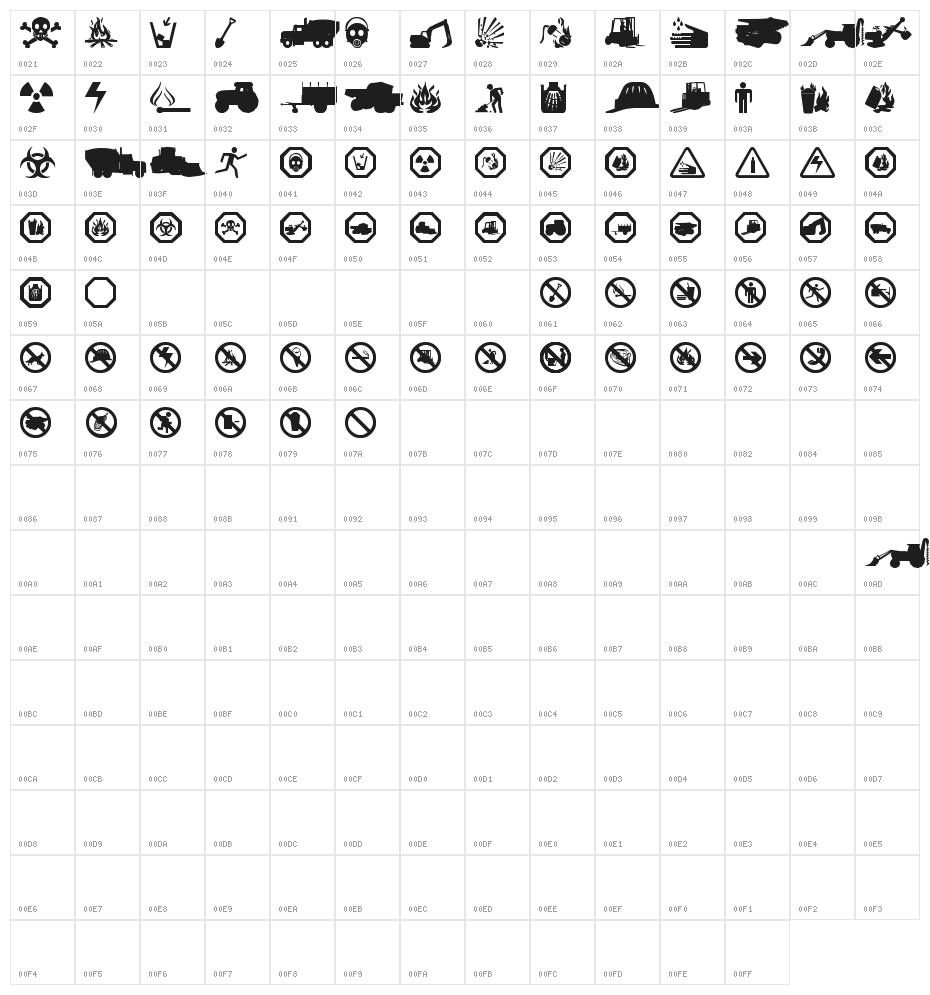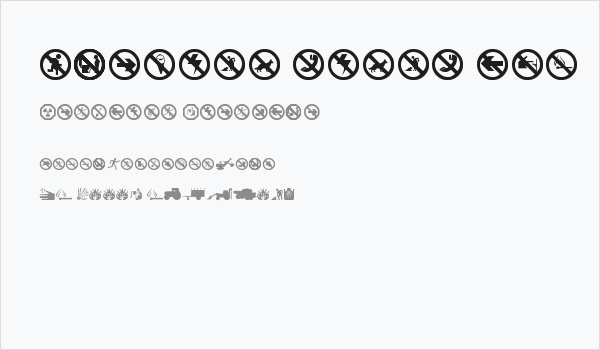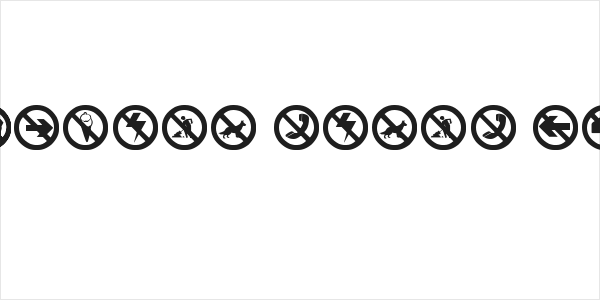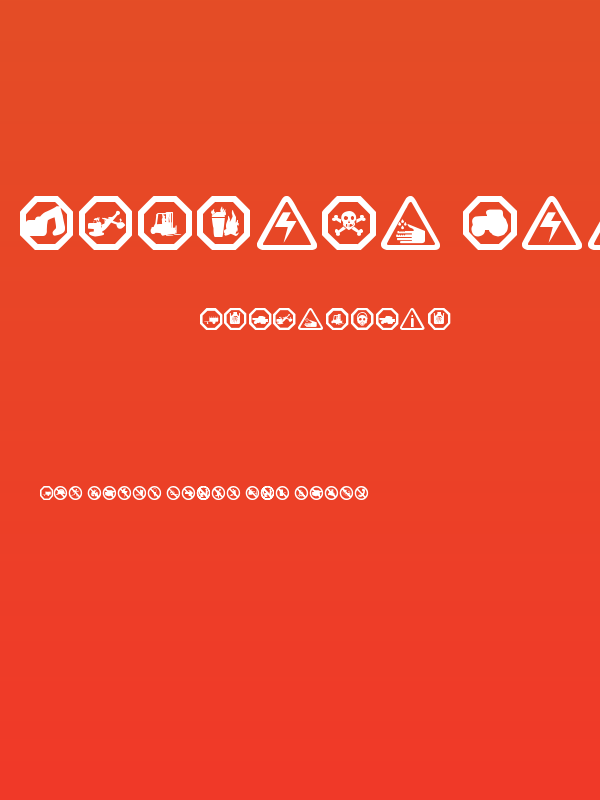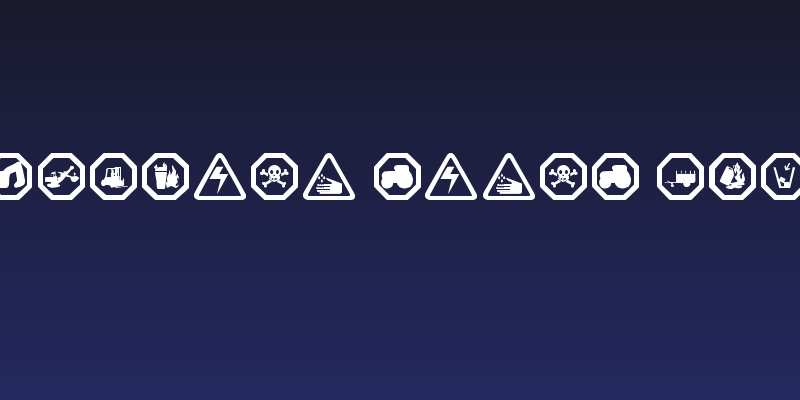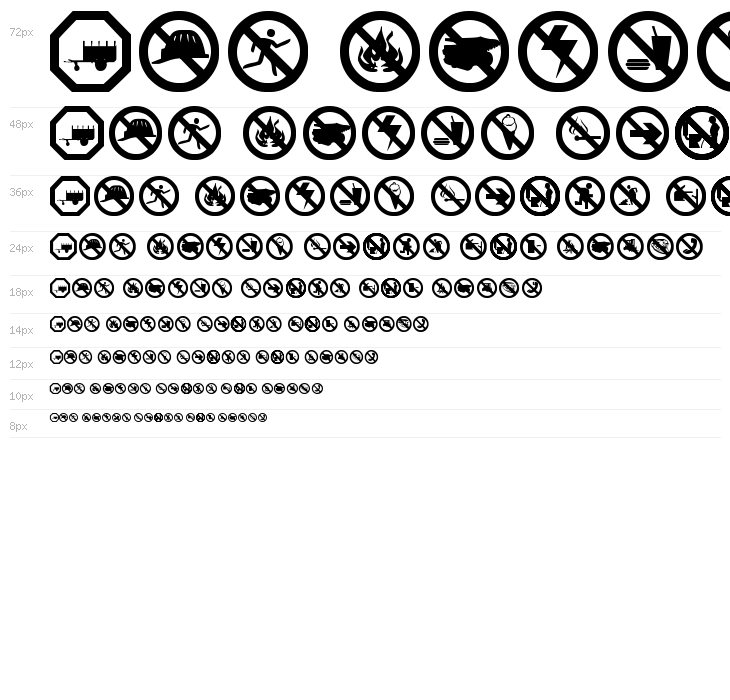
working signs tfb Font
working signs tfb Description
This collection of symbols is designed to convey various safety and warning messages through bold, easily recognizable icons. Each symbol is enclosed within a geometric shape, such as a circle or octagon, enhancing visibility and clarity. The icons include a range of safety warnings, from hazardous materials and electrical dangers to prohibited actions and mandatory safety measures. The use of high contrast black and white ensures that the symbols are easily discernible from a distance, making them suitable for use in environments where quick recognition is crucial. The consistent style across all symbols provides a cohesive look, making them ideal for integration into safety manuals, signage, and instructional materials.
| Use Case | Signage, Instructional materials |
| Proposed Projects | Ideal for safety manuals, workplace signage, instructional materials, and educational tools. |